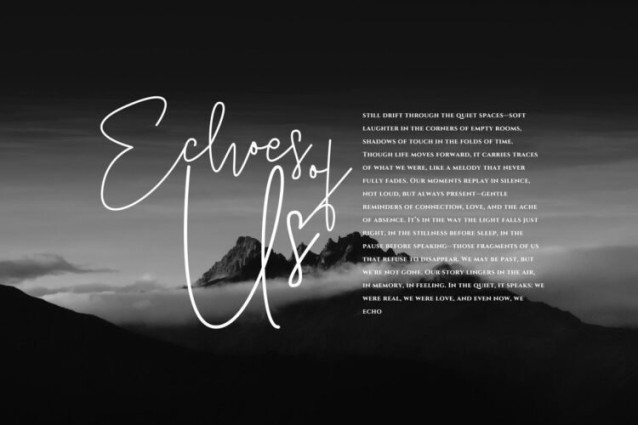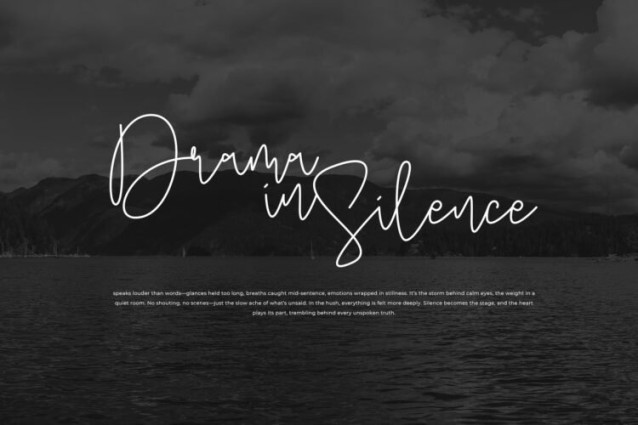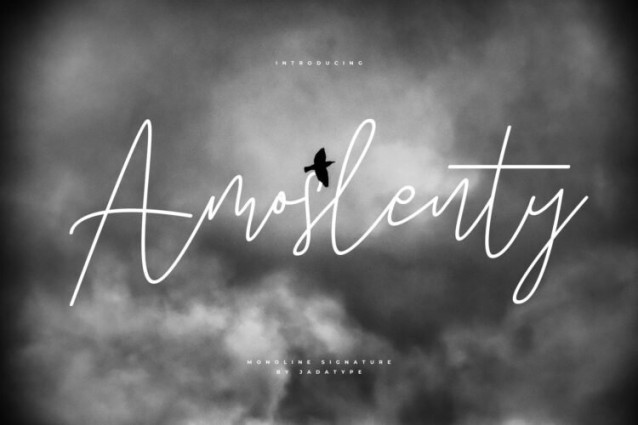
Amoslenty Signature Font
Amoslenty Signature Font is a font with a monoline style. suitable for social media, logotype, craft, advertisements, and so on. contains standard English letters, numbers, punctuation, and several accents that support multilingualism.